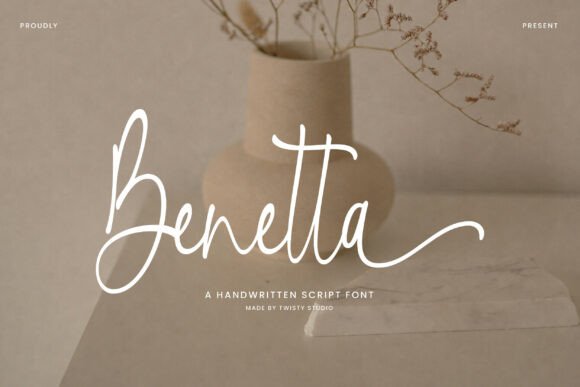
The Elusive Perfect Font: A Designer’s Quest
I’ll never forget the countless hours I spent searching for the perfect font for a client’s wedding invitation project. The design brief called for something elegant, yet personal; sophisticated, yet playful. I scrolled through font after font, but nothing seemed quite right. That was until I stumbled upon Benetta, a beautiful handwritten script typeface that stole my heart. In this article, I’ll share my experience with Benetta, its features, and how to make the most of this stunning font.
First Impressions: What I Love About Benetta
Benetta is a masterpiece of modern script typography, designed to bring elegance, warmth, and natural handwritten charm into your designs. Here are some things that I love about Benetta:
• ✨ Smooth flowing strokes and graceful curves that exude sophistication
• ✅ Expressive handwritten details that add a touch of personality
• 💫 Perfect for creative projects that require softness, romance, and refined typography
• 🎨 Highly versatile and suitable for various design applications, from branding to social media content
The Not-So-Perfect: Small Quirks and Limitations
While Benetta is an exceptional font, it’s not without its quirks. Here are a few things to keep in mind:
• 🤔 Some users may find the font a bit too delicate for certain design applications, such as large-scale posters or billboards
• ⚠️ As with any script font, it’s essential to use Benetta at the right font size to maintain its elegance and legibility
The Story Behind Benetta
Benetta was designed with the intention of creating a modern script font that exudes elegance and sophistication. The designer’s goal was to craft a font that feels both personal and refined, making it perfect for creative projects that require a touch of warmth and personality.
What makes Benetta unique? Benetta’s unique blend of smooth flowing strokes, graceful curves, and expressive handwritten details sets it apart from other script fonts.
Is Benetta suitable for large-scale designs? While Benetta is an elegant font, it may not be the best choice for large-scale designs, such as posters or billboards, due to its delicate nature.
Does Benetta support OpenType features? Yes, Benetta supports OpenType features, including glyphs and stylistic alternates, which can be accessed in compatible design software.